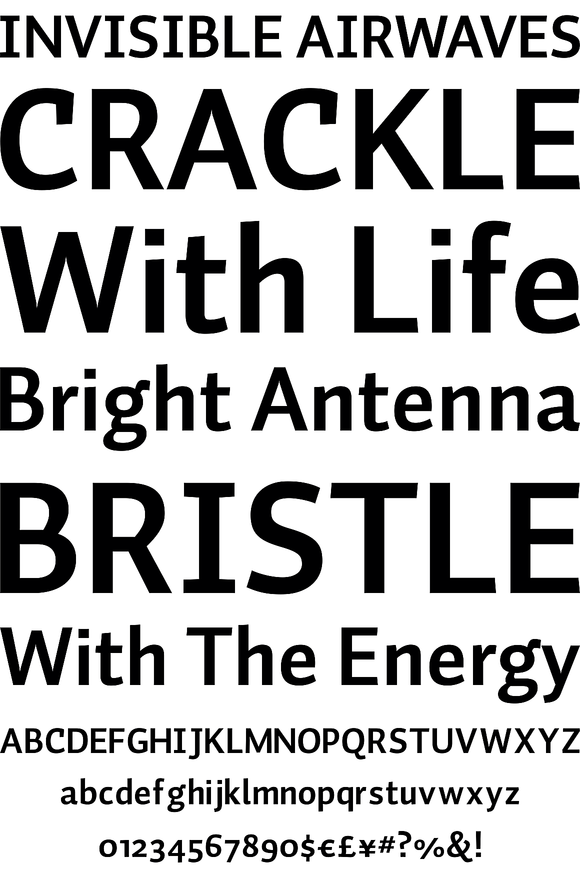
Auto is a sans serif family which includes three different italics, each with their own flavour. The font family consists of 3 x 24 fonts.
With its three italics, Auto creates a new typographic palette, allowing you to explore unknown typographic and linguistic possibilities. Also, due to its extended European character set, as well as the four weights (light, regular, bold and black) and the three different figure styles, it's a vehicle for many roads of typography.
Take a ride, and let this typeface drive you to business - or leisure.